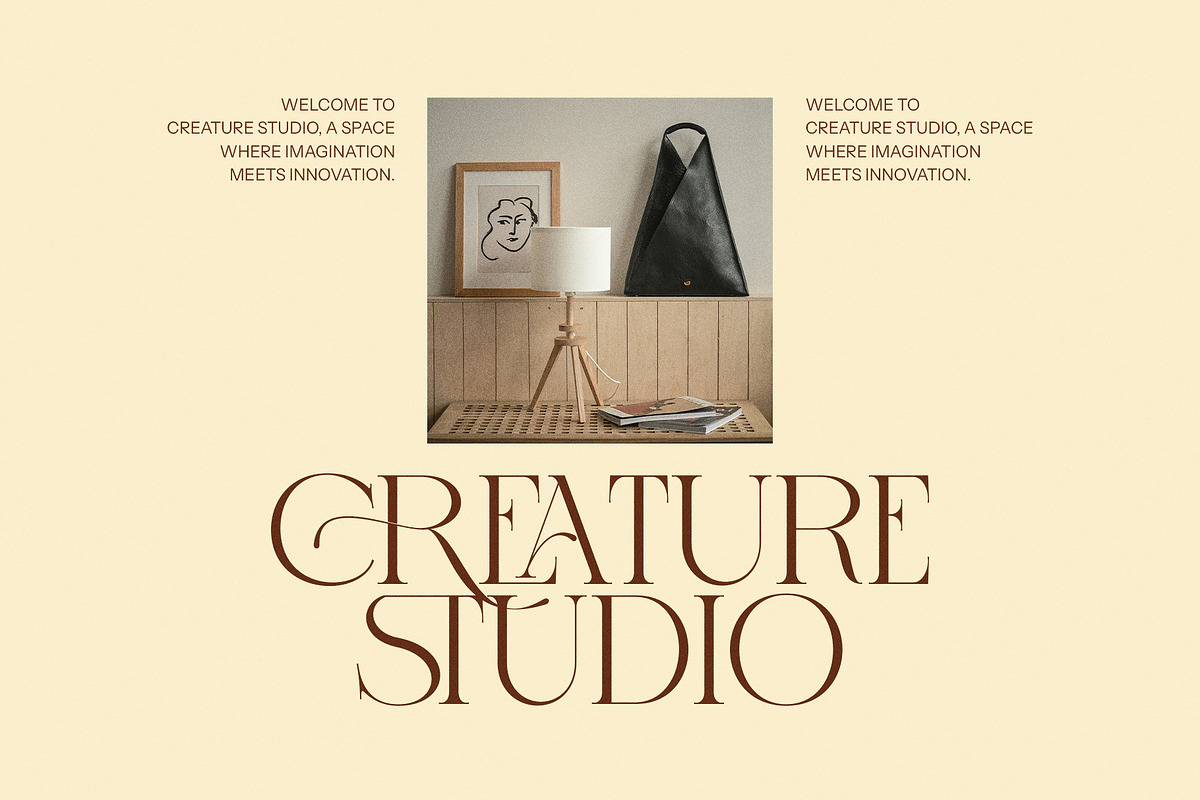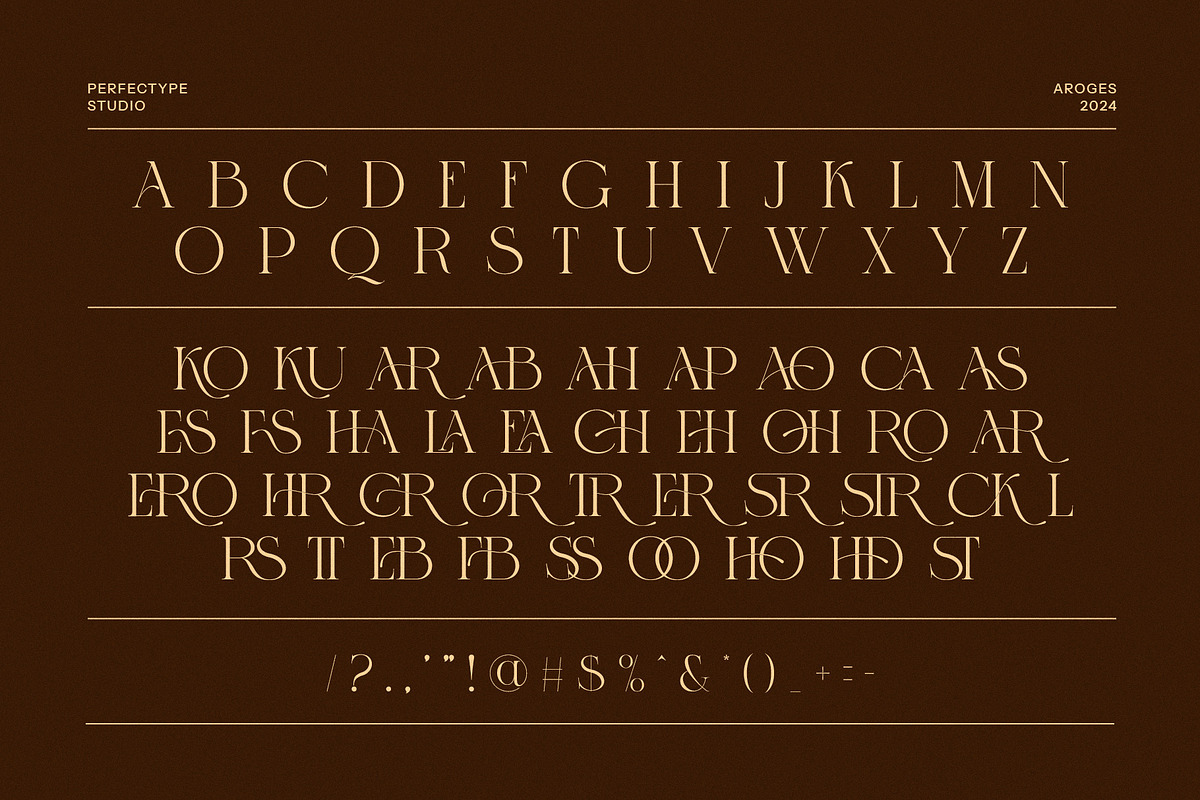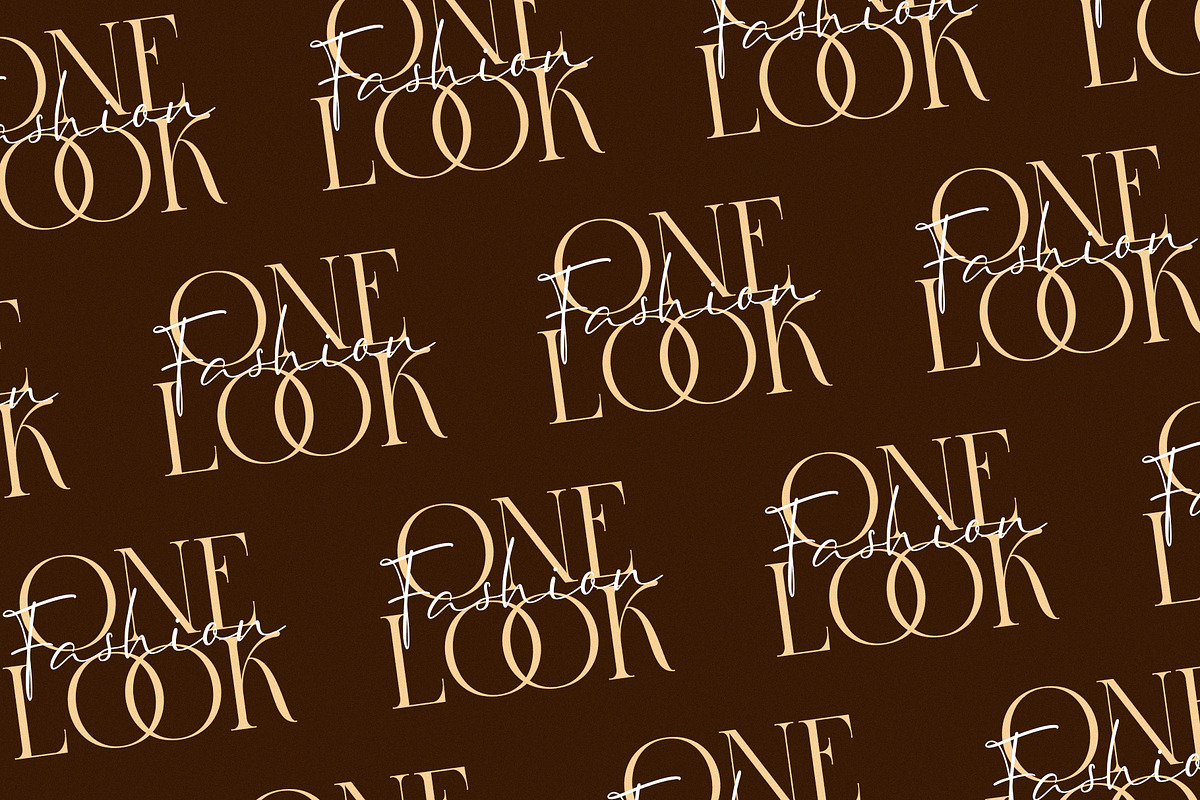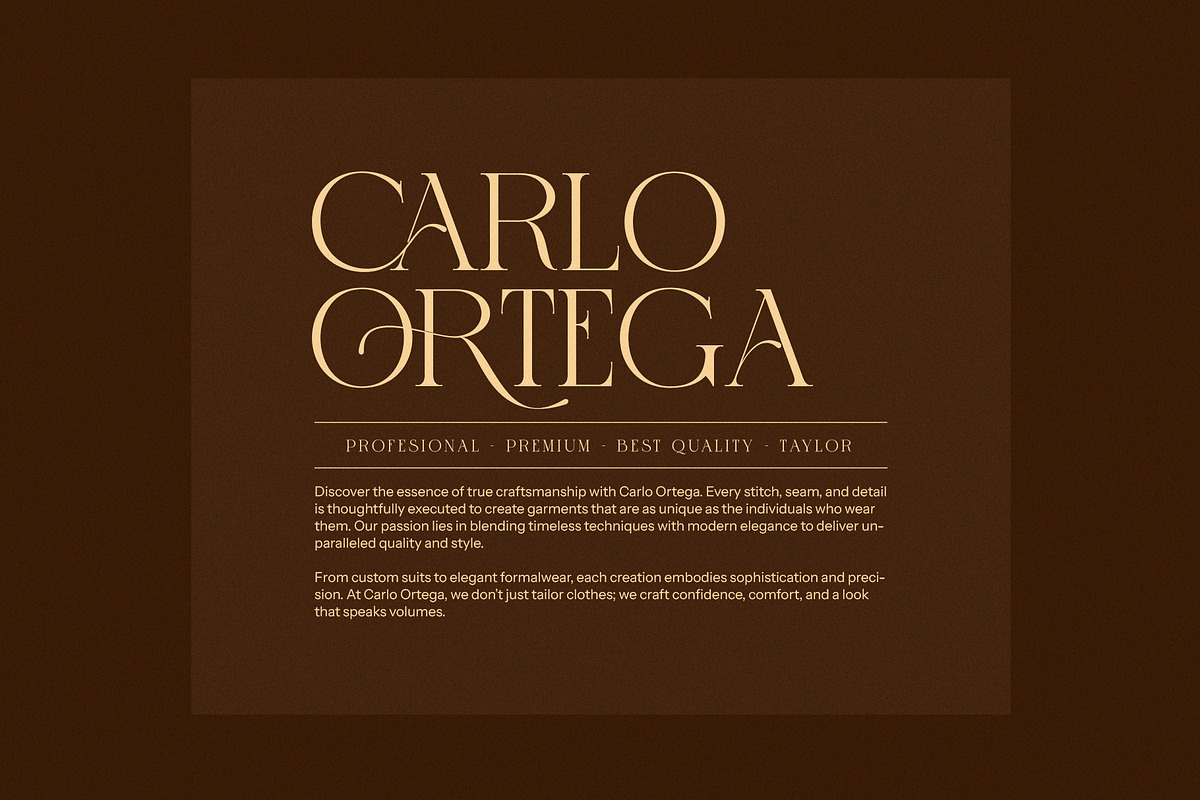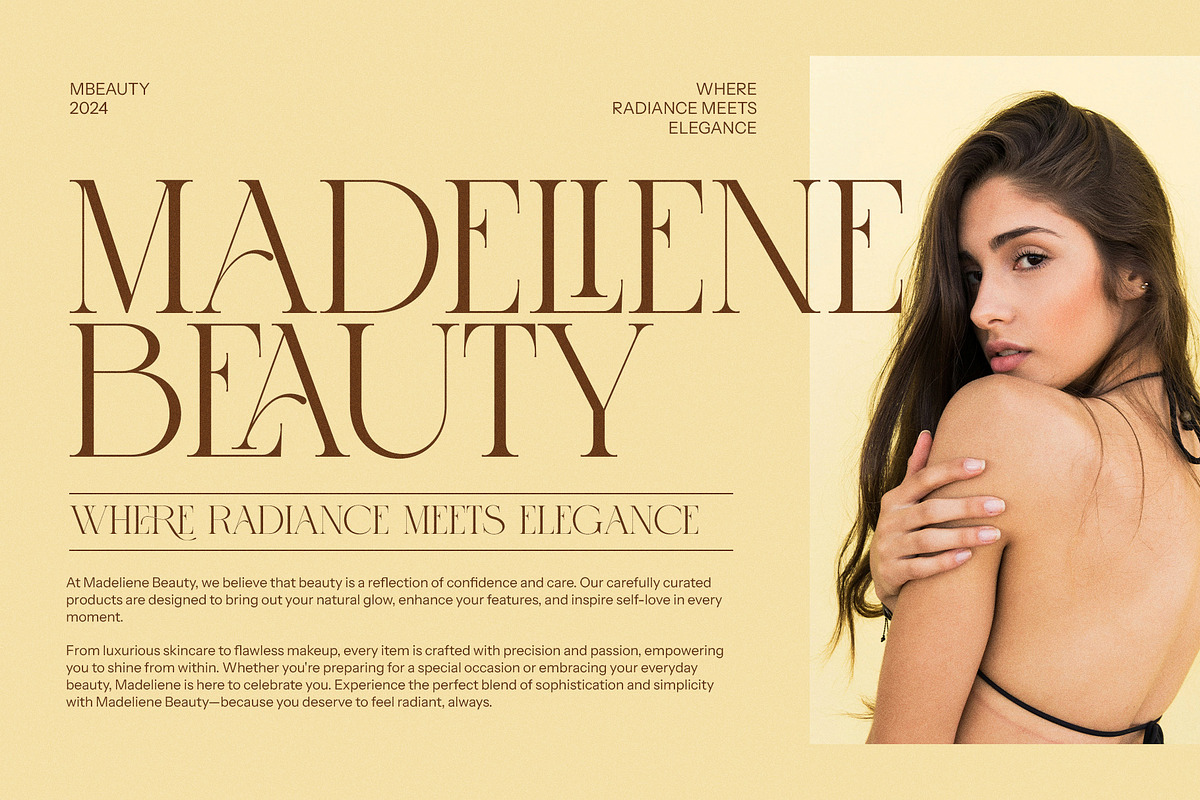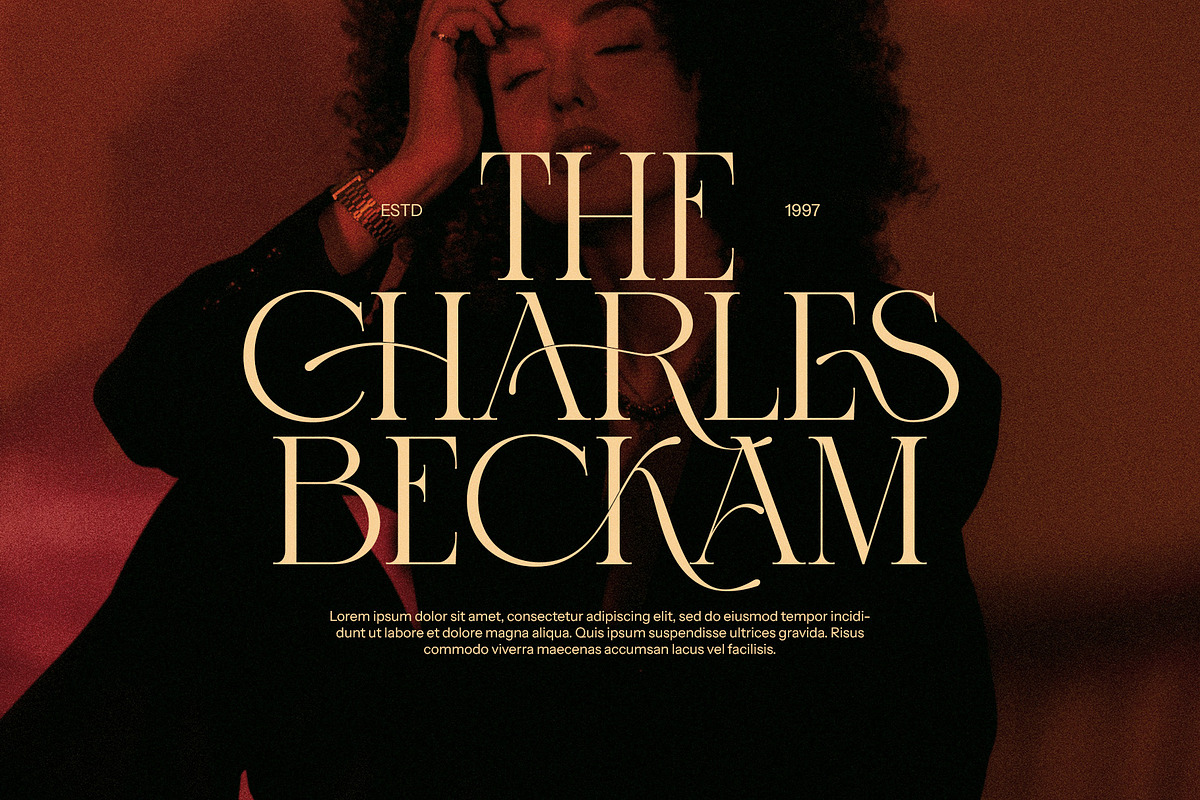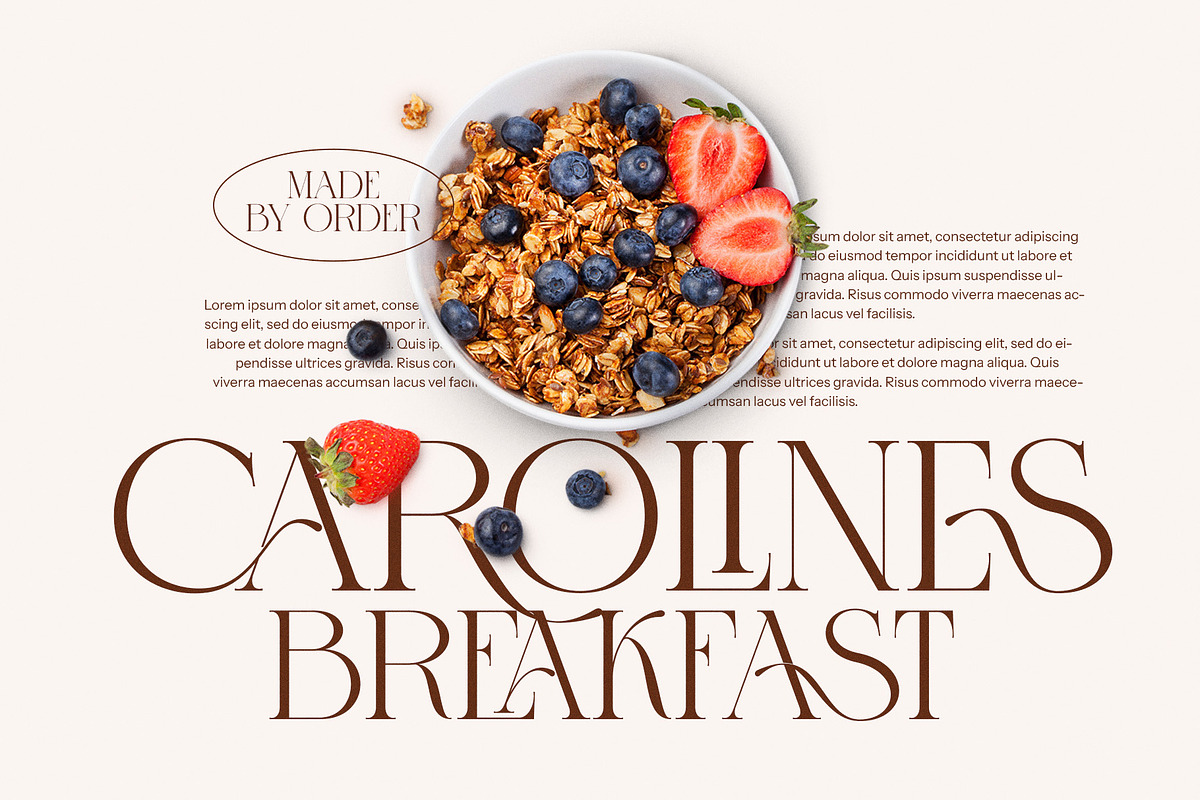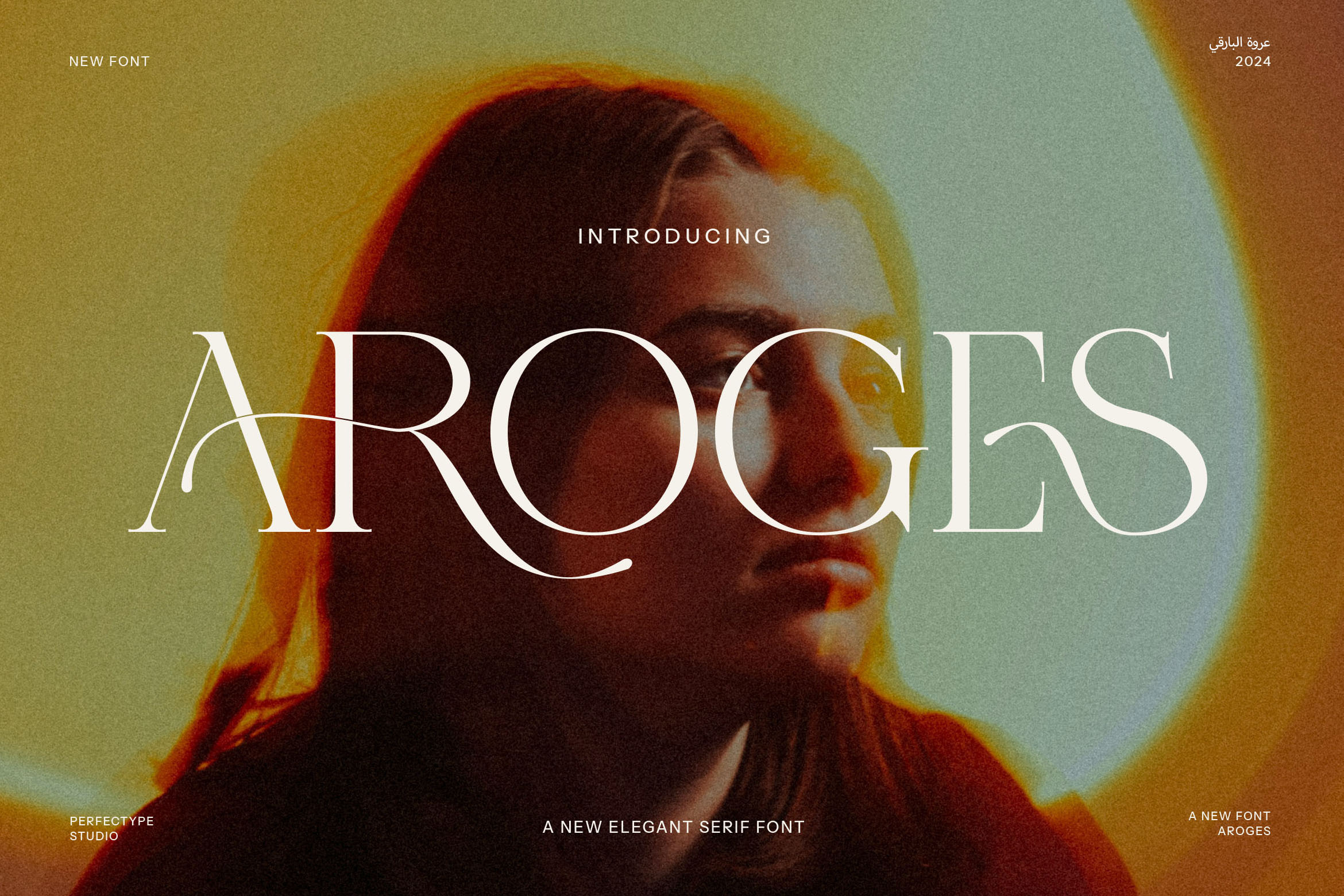
Aroges Elegant Serif Font
Aroges Elegant Serif Font is the epitome of modern sophistication and timeless charm. With its carefully designed serifs and graceful curves, Aroges brings a sense of luxury and refinement to any project. This typeface blends traditional elegance with a contemporary edge, making it ideal for a wide range of creative applications. Its unique ligatures and alternate characters further enhance its versatility, allowing for dynamic typographic compositions that capture attention and inspire admiration.
Perfect for high-end logos, branding, and upscale websites, Aroges elevates any design with its balanced combination of style and readability. Its refined aesthetic makes it an excellent choice for magazine layouts, editorial designs, and premium product packaging, offering a timeless visual appeal that resonates with discerning audiences. Whether you're creating visual identities for a boutique, luxury brand, or food and beverage product, Aroges provides the perfect foundation for a strong and memorable brand presence.
The font’s elegant form, paired with its distinctive ligature and alternate features, gives designers the flexibility to experiment with custom typographic treatments, ensuring that every design stands out. Aroges is equally well-suited for both print and digital media, from advertisements to websites, offering a seamless experience across multiple platforms.
With its classic elegance and modern twist, Aroges Elegant Serif Font is an essential tool for crafting polished, high-end designs that leave a lasting impression. Whether for branding, print, or digital media, this font’s beauty and versatility make it a go-to choice for luxury design projects.